The second month of 2025 brings us a rich harvest of new typefaces that perfectly illustrate typography's dual nature: serving designers' practical needs while pushing creative boundaries.
This month's selection is particularly notable for how it spans the full spectrum of contemporary type design. We see the culmination of long-term projects like Typonym's seven-year development of Marsam, alongside rapid-response innovations like Inclusive Sans's expansion to meet user demand. Meanwhile, releases like Pangram Pangram's Model show how cultural influences—in this case, Japanese model kits—continue to inspire fresh approaches to type design.
Read on as we present seven of the best new font releases of February 2025. Each offers unique solutions to design challenges while pushing the boundaries of what type can be and do.
1. Inclusive Sans by Olivia King
Building on the success of its initial release, Inclusive Sans 2.0 marks a significant evolution in accessible typography. With over 1.25 million API serves in a single week, its impact on everyday typography is already profound. Now Olivia King has expanded this Google Fonts favourite with an impressive range of new weights, from Light through to Bold, plus a variable font option for ultimate flexibility.
The latest version of Inclusive Sans maintains its core mission of exceptional readability while introducing refined details that make it even more versatile. Its neo-grotesque foundations are enhanced by thoughtful features specifically designed for accessibility, making it an ideal choice for both digital interfaces and print applications.
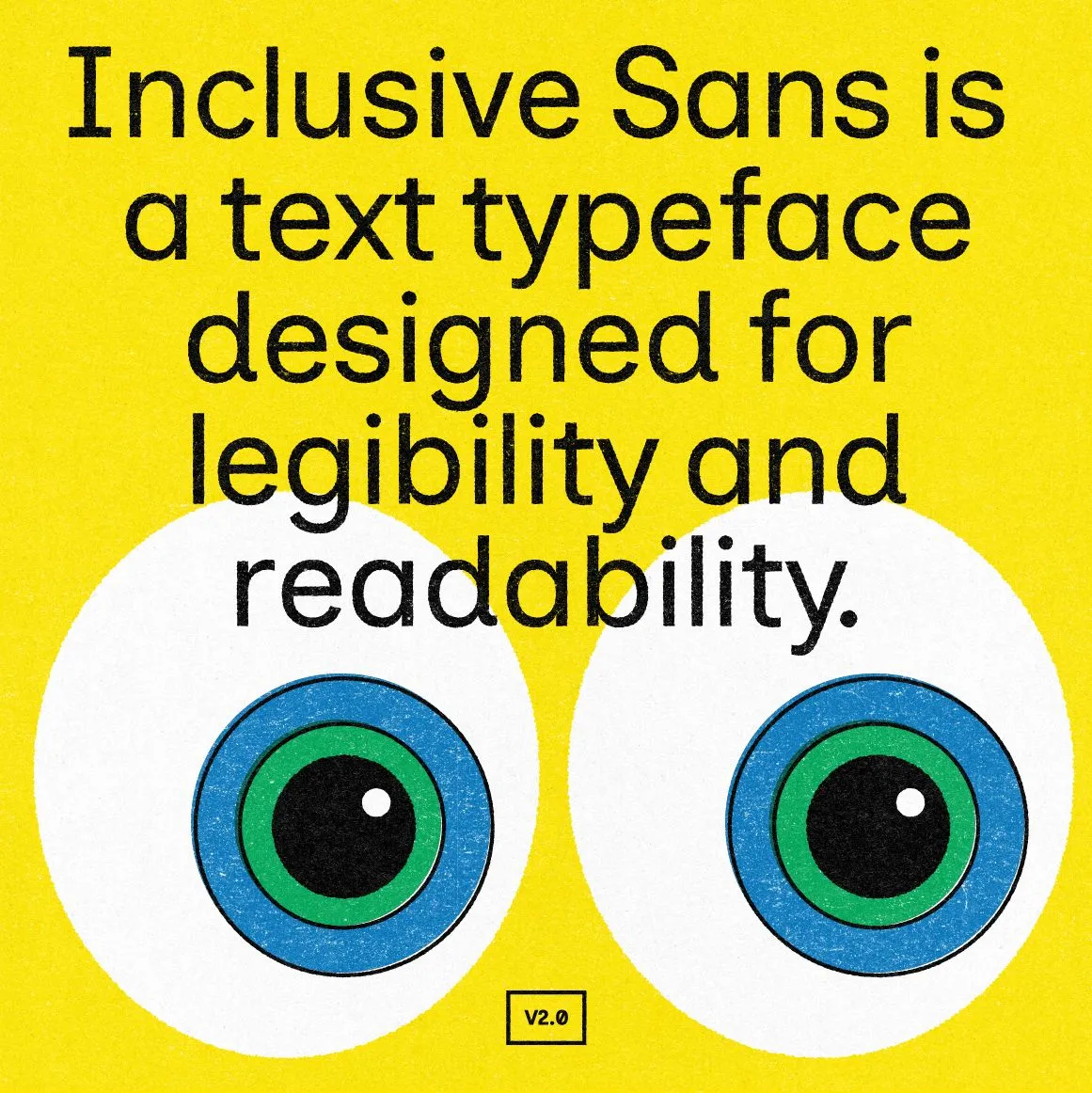
Inclusive Sans by Olivia King
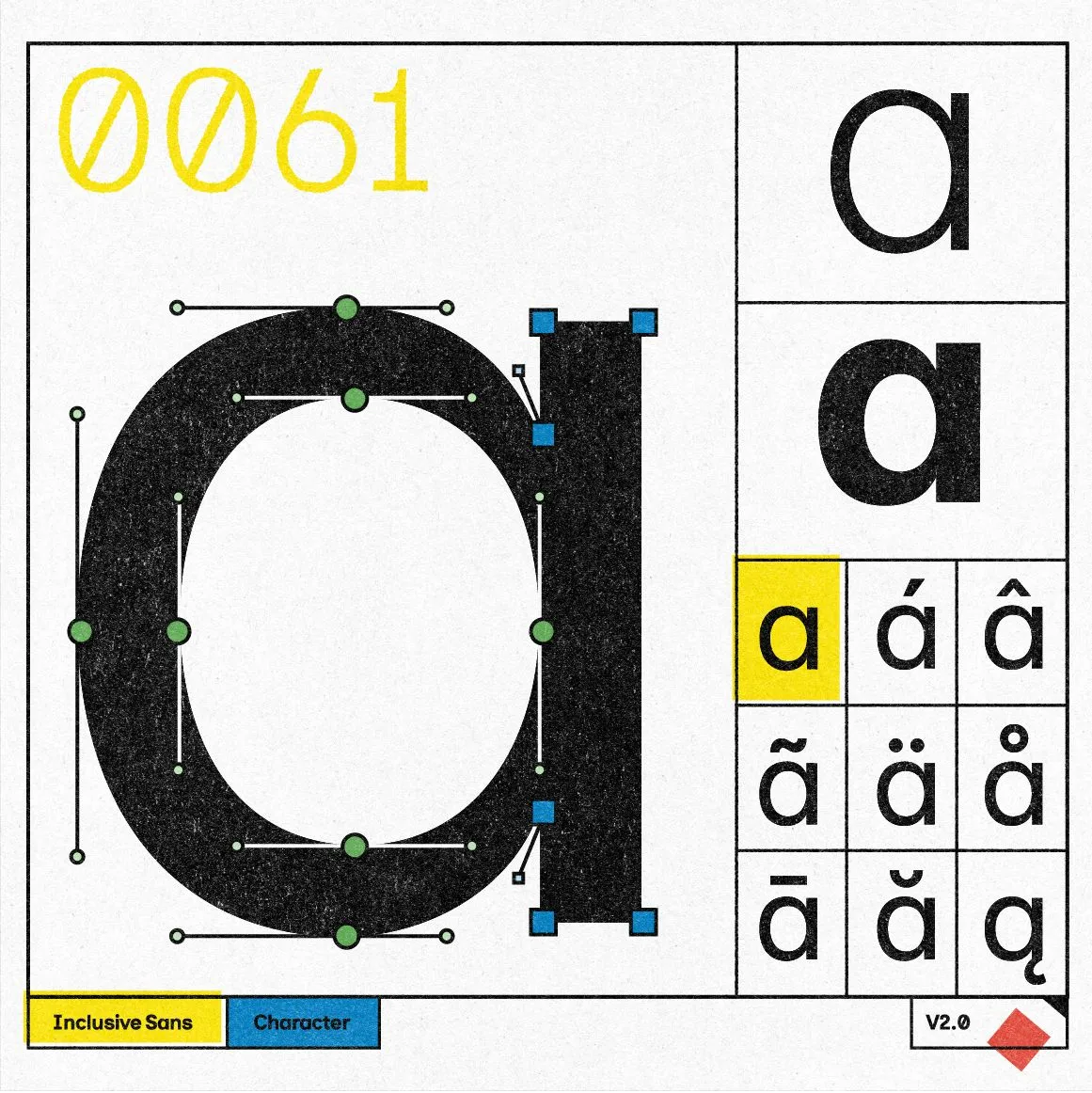
Inclusive Sans by Olivia King
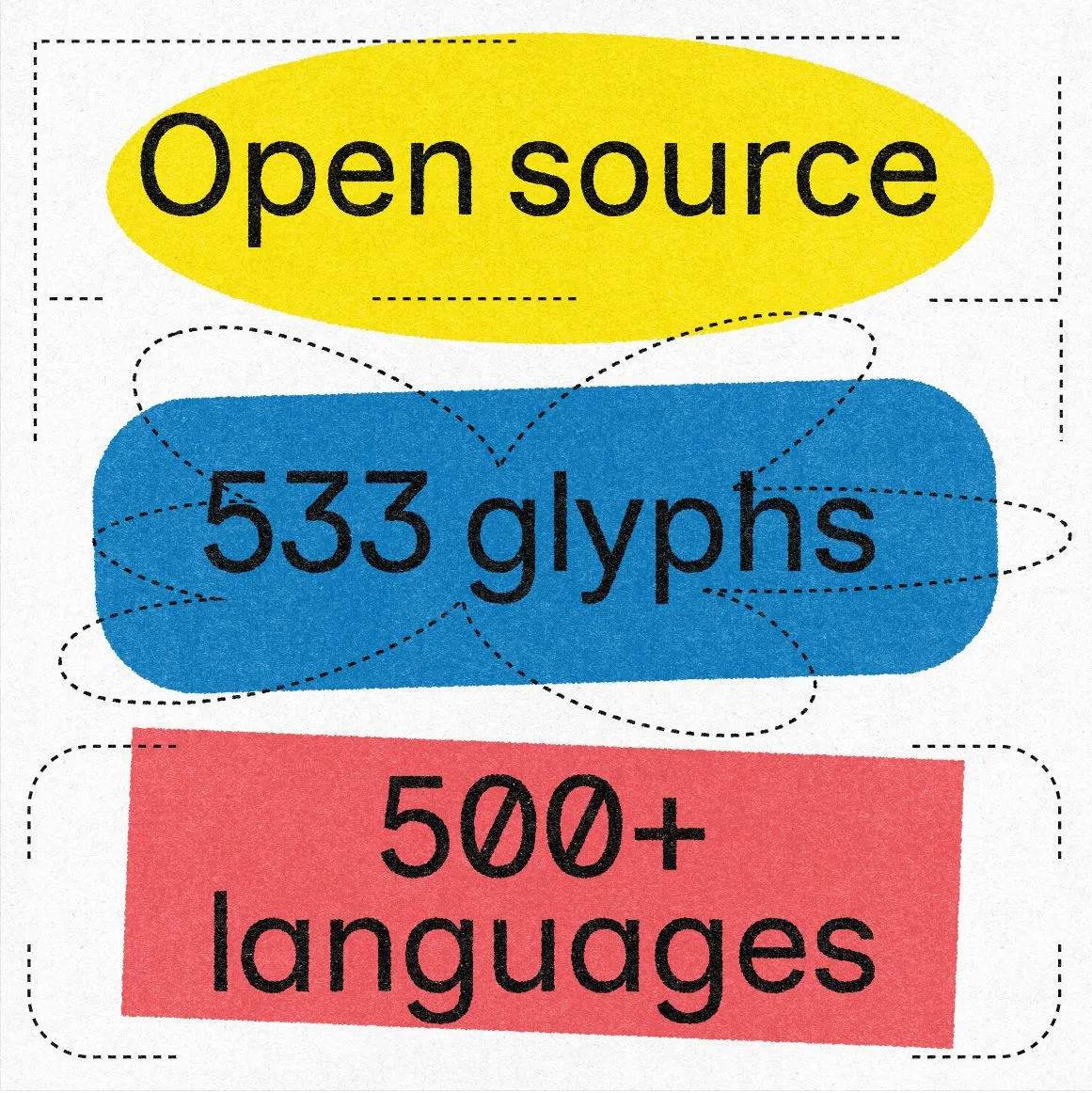
Inclusive Sans by Olivia King
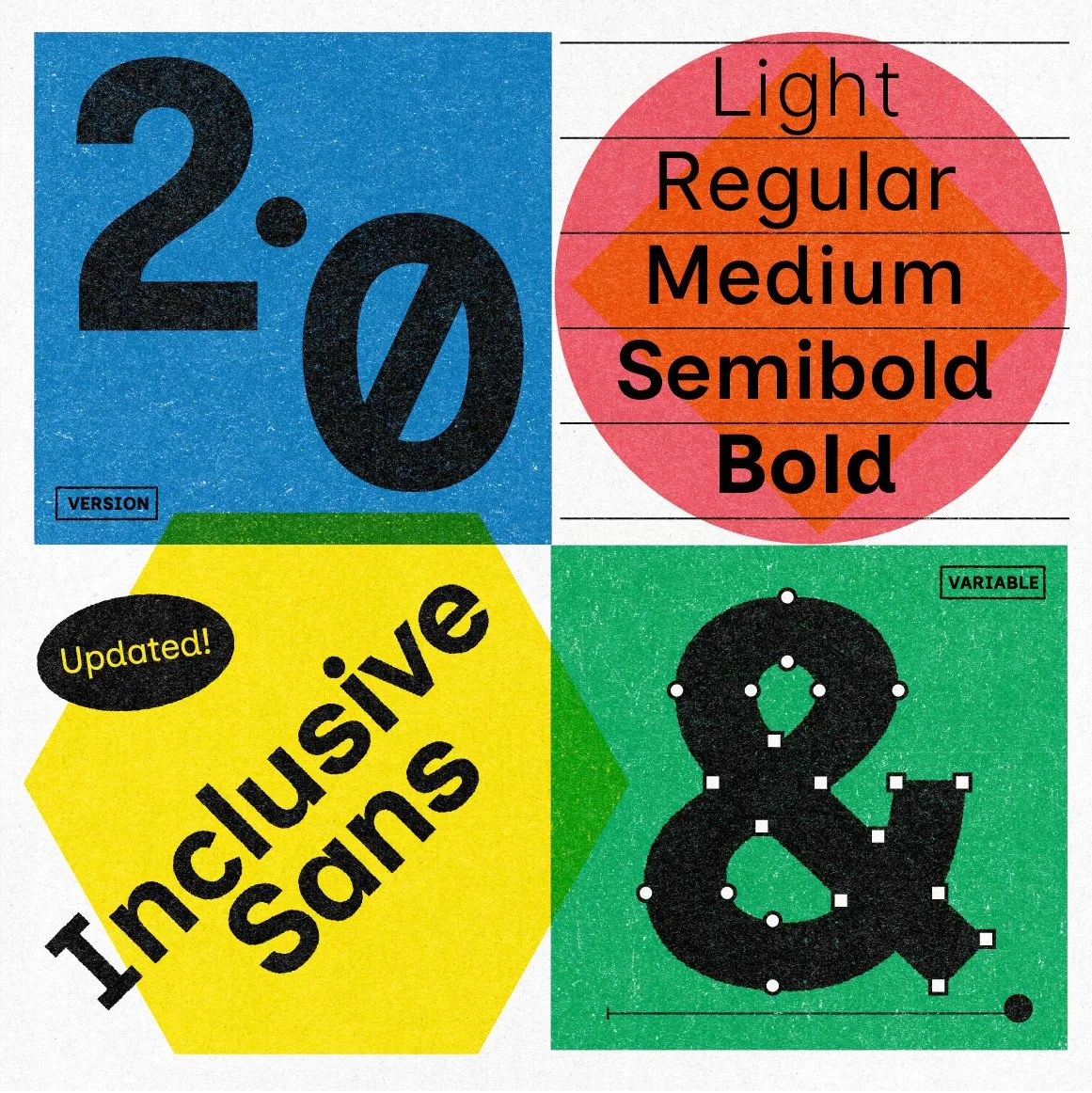
Inclusive Sans by Olivia King
2. Marsam by Typonym
Seven years in the making, Marsam represents a masterful reimagining of the slab serif genre. This extensive 20-font family bridges the gap between stern neo-grotesque slab serifs and traditional Clarendons, offering a distinctly modernist interpretation that feels fresh and contemporary.
Particularly noteworthy are the thoughtfully crafted a, c, g, r, and s glyphs and numerals, which demonstrate exceptional attention to detail. The italics shine with true cursive forms rather than merely slanted romans, while Marsam's ability to pair seamlessly with sans-serif Newsam makes it an invaluable addition to any typographic toolkit.
Marsam by Typonym
3. Resonay Text by TypeMates
Designer Andrej Dieneš brings us a gentle yet sophisticated text face that masterfully balances calligraphic expression with contemporary functionality. As the readable counterpart to Resonay Display, this new release features classical letterforms enriched by stone-cut lettering influences.
With over 2,000 glyphs per weight and support for more than 200 Latin languages, Resonay Text is remarkably comprehensive. Its 200+ ligatures, including specially designed initial and final swashes, provide sophisticated typographic control. Plus, the five-weight family, from Thin to Bold, includes true small caps and context-sensitive punctuation, making it particularly suitable for poetry, literary works and elegant editorial design.
Resonay Text by TypeMates
4. Cedrat by Formagari
Emmanuel Besse's Cedrat family represents a thoughtful evolution of historical type forms, reimagined for contemporary use. Drawing inspiration from the Hollandaises typefaces of the Berthier & Durey foundry's 1895 specimen book, this extensive family spans three optical sizes: Display, Standard and Text.
Each variant offers six weights with matching italics, containing 1,030 glyphs per style. Crucially, rather than simply digitising historical forms, Besse has refined the design while maintaining its distinctive character. This is particularly evident in the italics, which draw inspiration from Times and ITC Caslon 223. Overall, the result is a versatile system that bridges display and text applications while honouring its 19th-century roots.
Cedrat by Formagari
5. Lettra Mono by Pangram Pangram
This monospaced serif typeface is the latest take on an evergreen challenge: providing uniform spacing while maintaining visual interest. Drawing inspiration from typewriter fonts and botanical illustrations, Lettra Mono features strong vertical contrast and distinctive diamond-shaped details that set it apart from conventional monospaced designs.
Available in eight weights with matching italics, the family includes experimental alternates and unconventional ligatures that add personality while maintaining functionality. Its consistent weight distribution and careful attention to proportion make it suitable for both creative display work and technical applications where monospaced type is essential.
Dysto by Joseph Dennis via The Designers Foundry